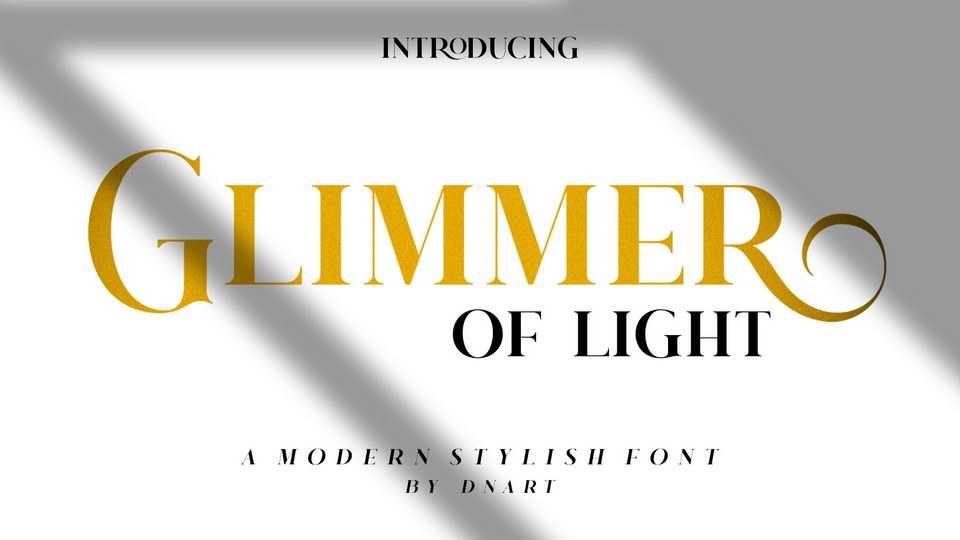
Download Glimmer of Light font, a wild and majestic typeface that adds a dangerously elegant twist to any design. Although the inspiration comes from the Art Deco era, Glimmer Of Light feels modern and contemporary.